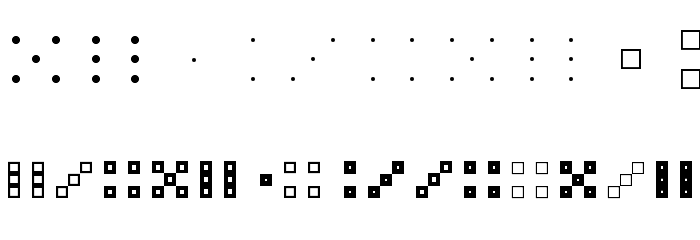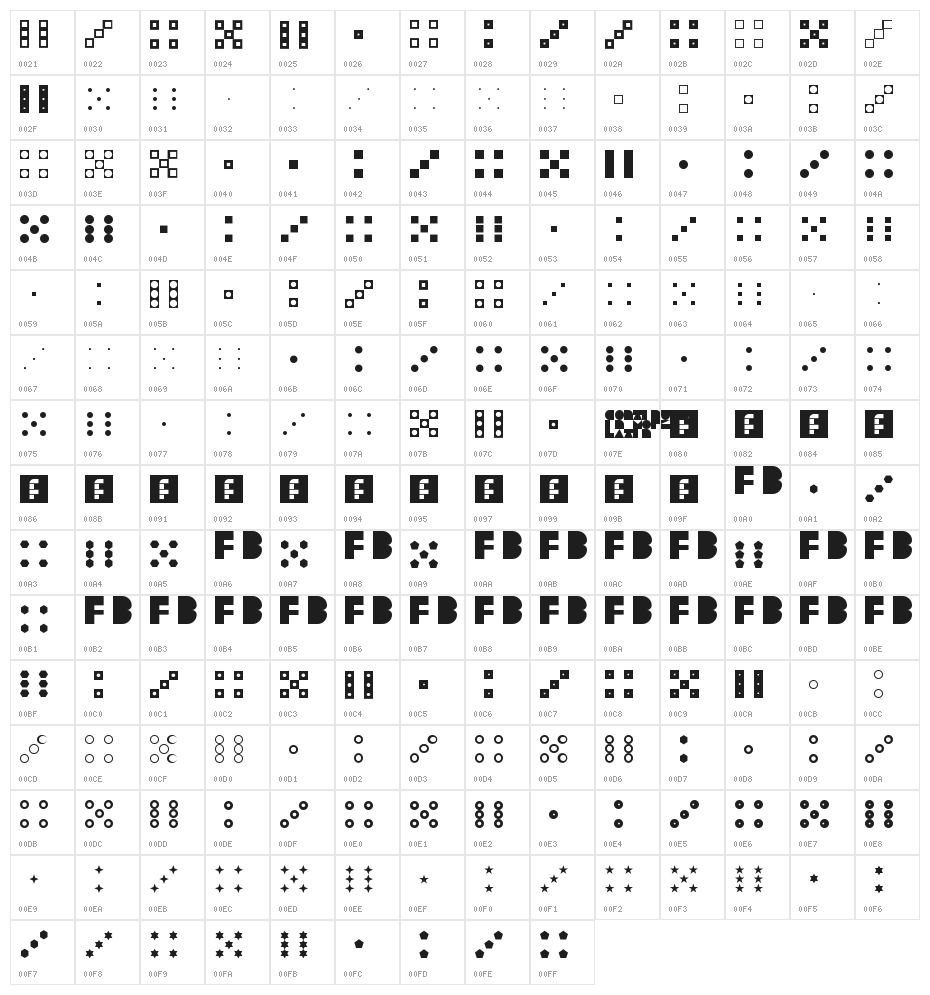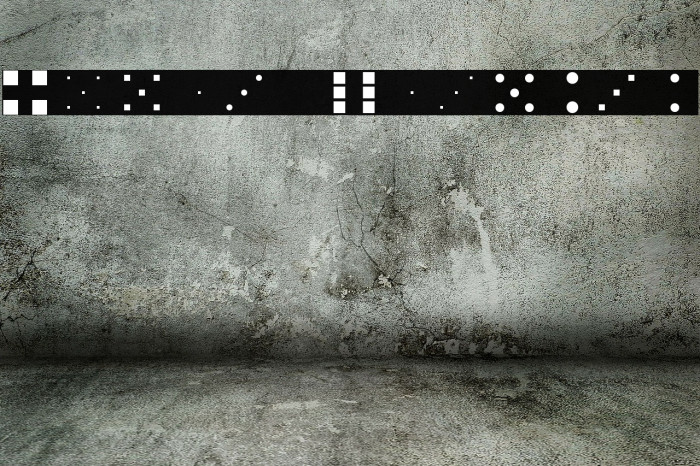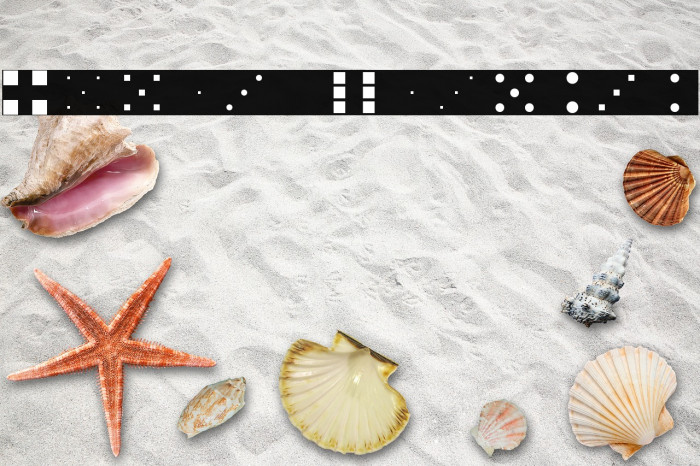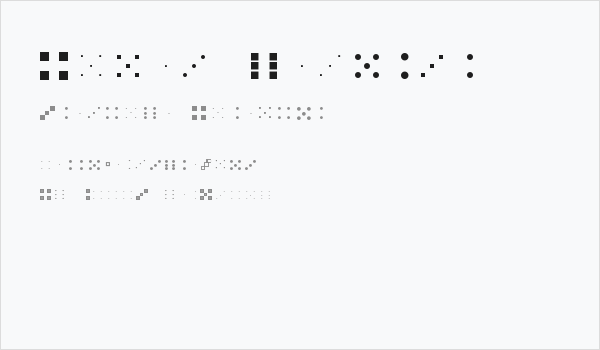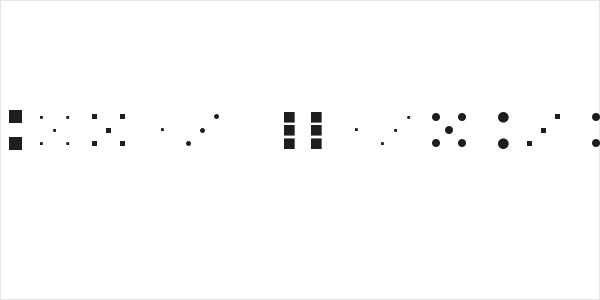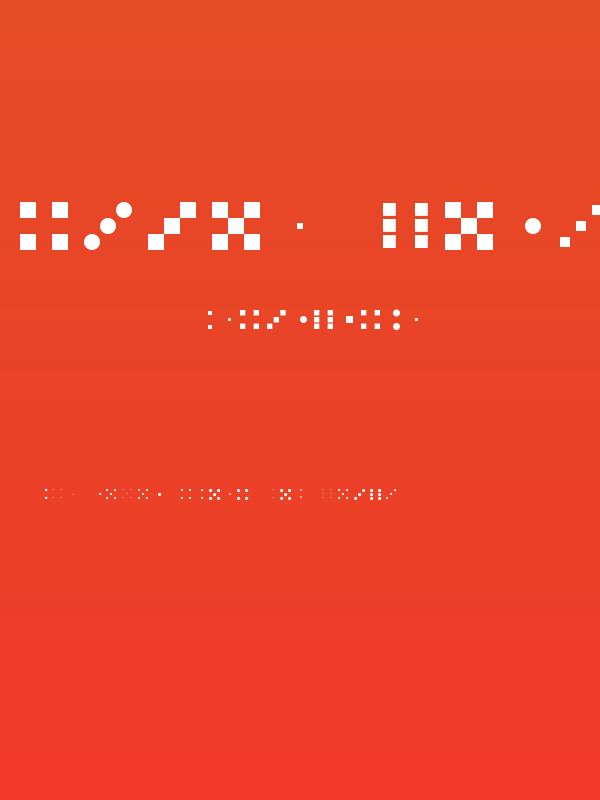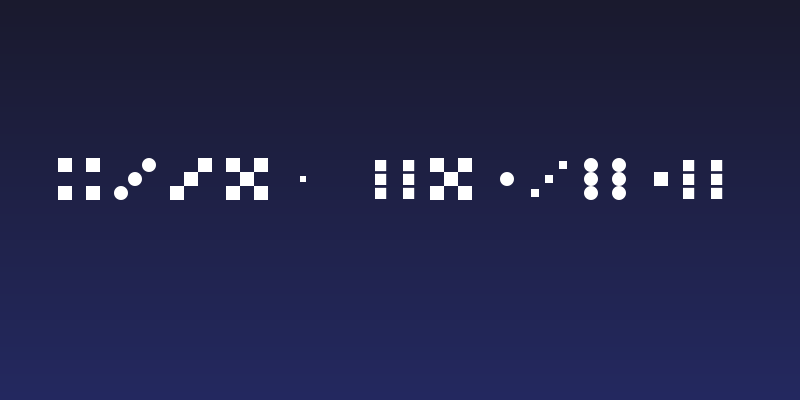
Dicey Regular Font
Dicey Regular Description
This font features a unique design where each character is composed of a series of dots or squares, reminiscent of dice patterns. The characters are evenly spaced and maintain a consistent height, creating a uniform appearance across the text. The style is playful and unconventional, making it stand out in any design. The use of geometric shapes gives it a modern and digital feel, suitable for creative and tech-oriented projects. The font's distinctiveness lies in its ability to convey information in a visually engaging manner, making it ideal for attention-grabbing headlines or artistic displays.
| Use Case | Headlines, Logos, Artistic displays |
| Proposed Projects | Perfect for game designs, tech-themed posters, creative branding, and digital art projects. |